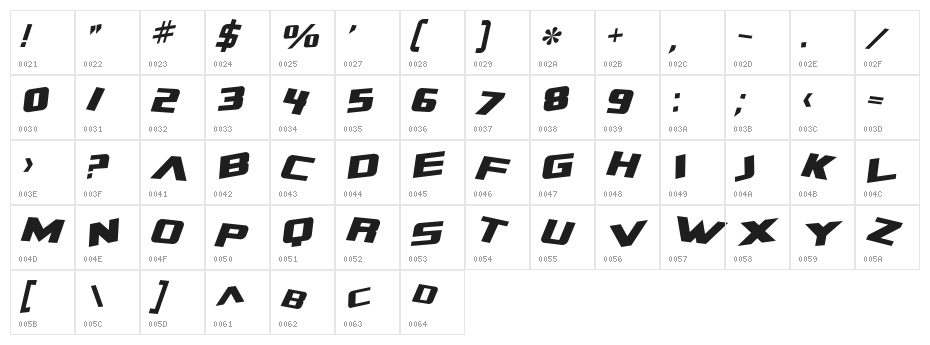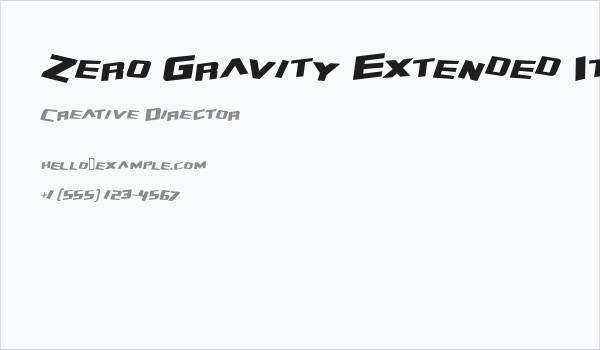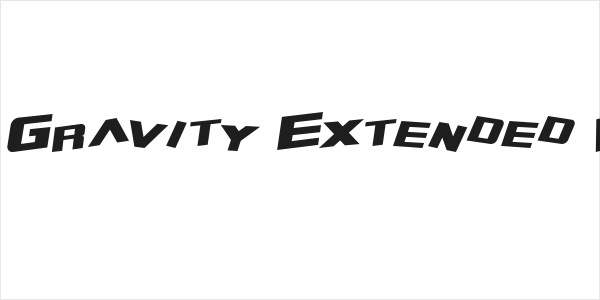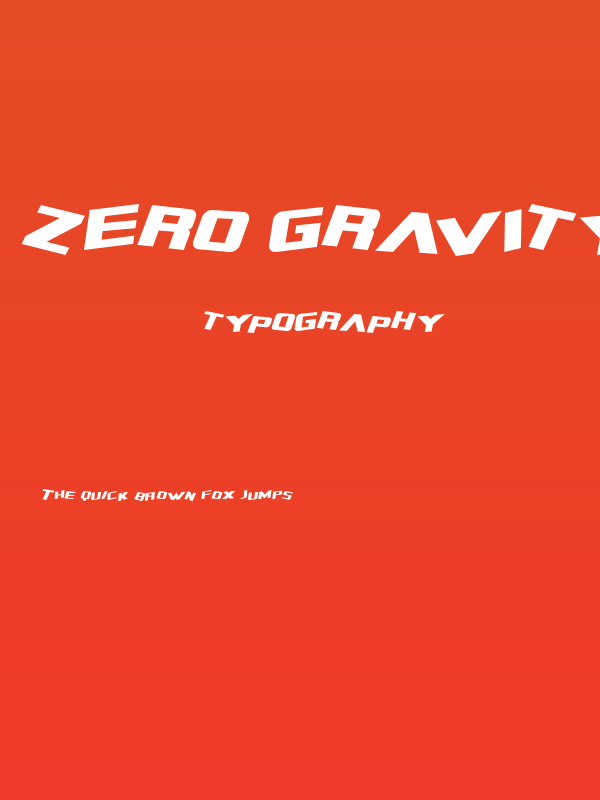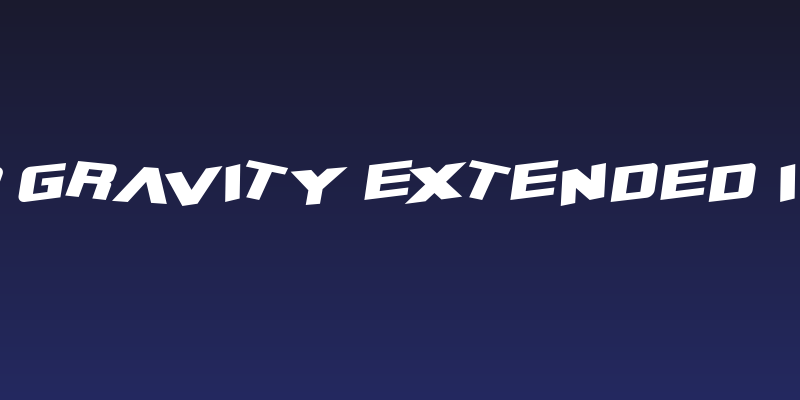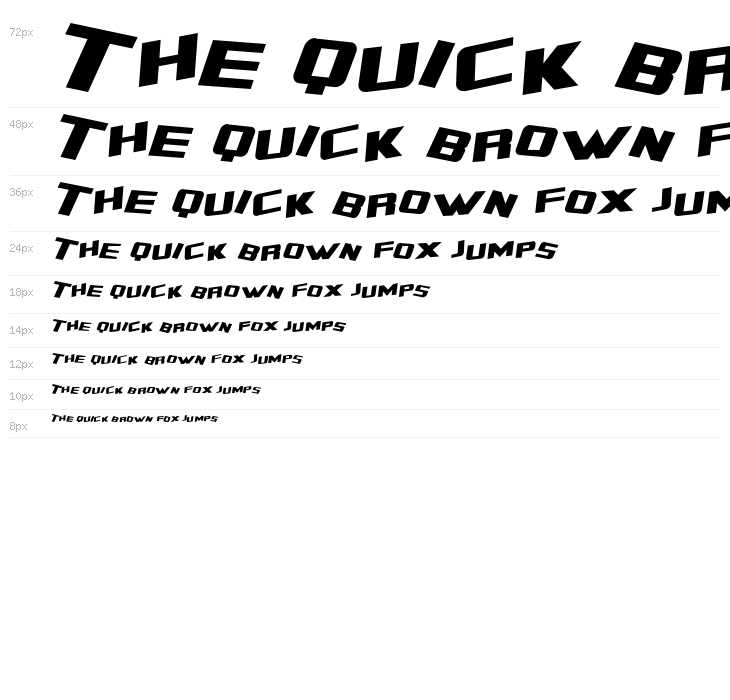
Zero Gravity Extended Italic Font
Zero Gravity Extended Italic Description
This dynamic and futuristic font features a bold, italicized style with extended characters that give a sense of motion and speed. The angular and sharp edges of each letter create a striking visual impact, making it ideal for attention-grabbing designs. The uppercase and lowercase letters maintain a consistent slant, enhancing the italic effect. The numbers and special characters follow the same design principles, ensuring uniformity across all elements. The font's unique style is perfect for projects that require a modern and edgy look.
| Proposed Projects | Ideal for sci-fi themed designs, video game titles, sports branding, and dynamic posters. |